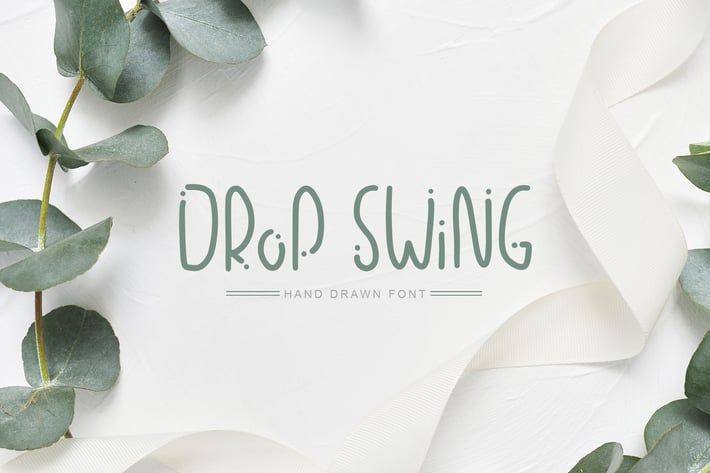
Drop Swing Hand Drawn Font
Drop Swing is the font is to help yourself for many Holiday designs. This font is fun to be used by all design needs, both for adults and children. Drop Swing contains standard characters, numbers and punctuations.
Drop Swing is Regular and Italic handmade font that give a charm and romantic holiday greeting cards, invitations, design for postcard, instagram, pintesest, etc. It`s elegant lettering font in Pointillisme style like a light breeze give freshness and dreaminess to your handmade creations.
PERFECT FOR
Decorate your albums, greeting cards (Christmas, Birthday, other holidays), sicial media, Instagram, Pinterest, logos, phrases, gift shops, internet shops presentation.